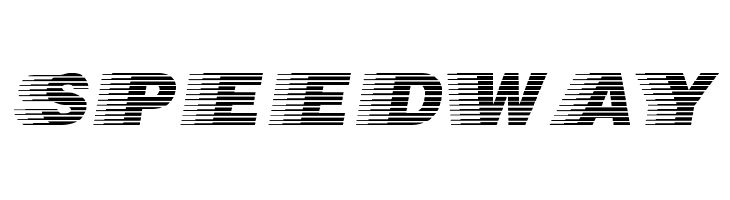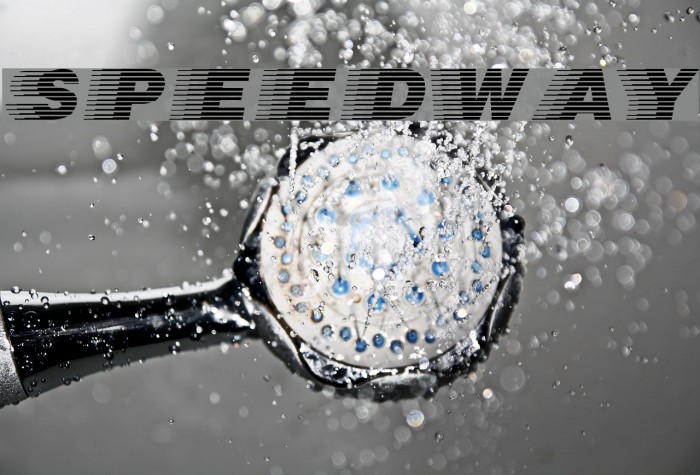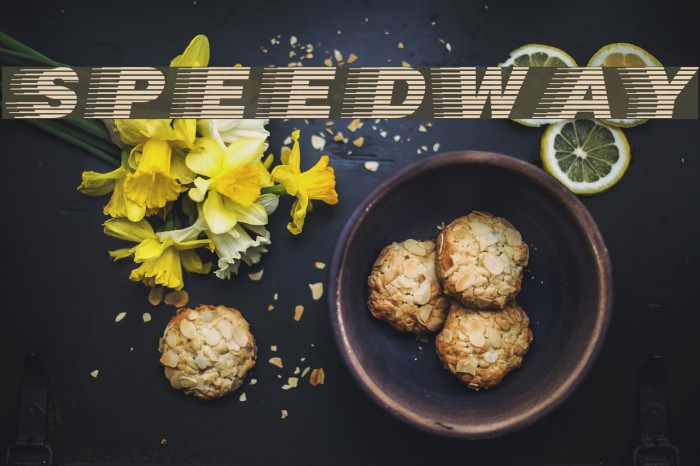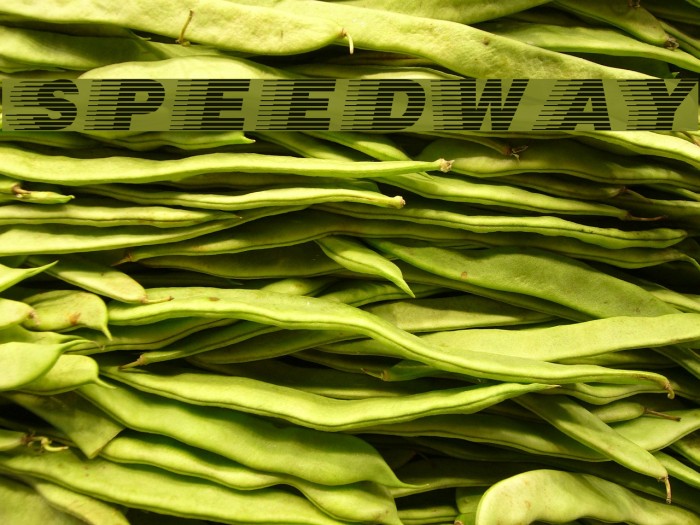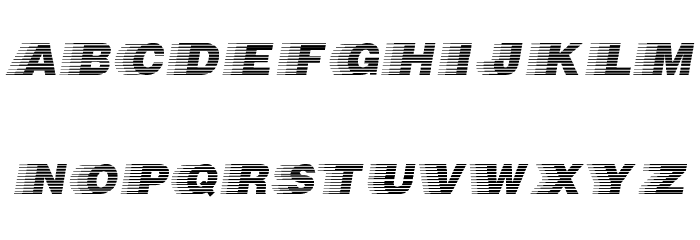
Speedway Font
Speedway Description
This dynamic and bold font features a distinctive slanted design with horizontal lines running through each character, creating a sense of speed and motion. The uppercase letters are robust and impactful, making them ideal for attention-grabbing headlines. The font's unique style is reminiscent of racing stripes, giving it a sporty and energetic feel. The consistent use of horizontal lines across all characters provides a cohesive look, while the slant adds a modern twist. This font is perfect for projects that require a sense of movement and excitement.
A bold, slanted font with horizontal lines, evoking speed and motion from Uncategorized fonts.
- Proposed Projects: Ideal for sports branding, automotive advertisements, racing event posters, and dynamic logo designs.